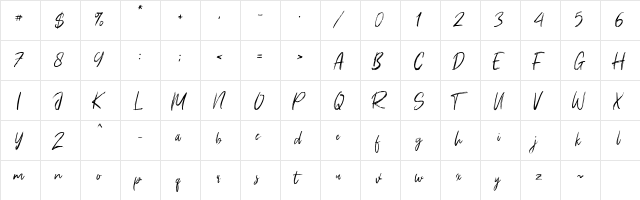
Young Robust Regular
| Foundry | Khurasan |
| Designer | Khurasan |
Design Context for Young Robust Typeface
Young Robust is a composed and adaptable typeface that performs quietly and consistently across a wide range of design contexts.